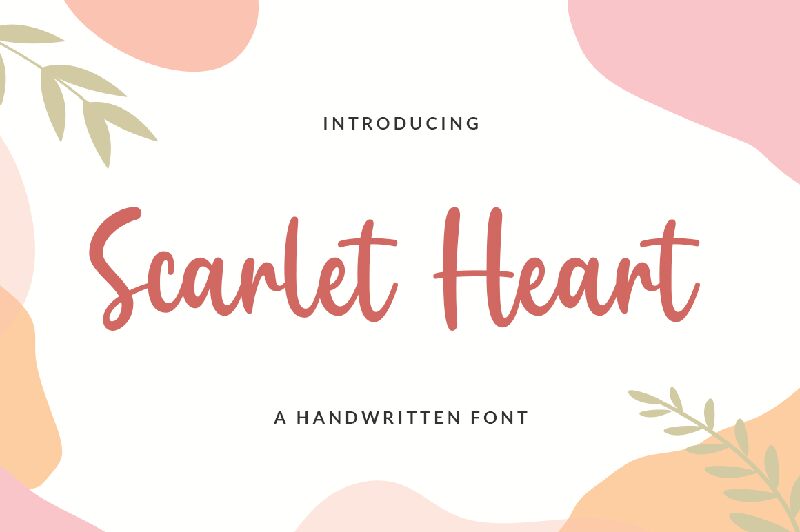
Scarlet Heart by Teguh Subiyantoro is a stunning handwritten font that exudes elegance and sophistication. Its flowing curves and gentle strokes create a captivating look that is perfect for any design project seeking a touch of femininity. Use the semi-bold typeface to add emphasis to headlines or titles, while the regular font is great for body copy or invitations. Scarlet Heart is ideal for branding, wedding invitations, greeting cards, and social media graphics. This font will make your projects stand out with its unique charm and graceful appeal.